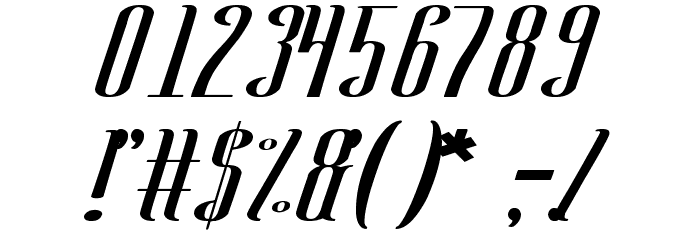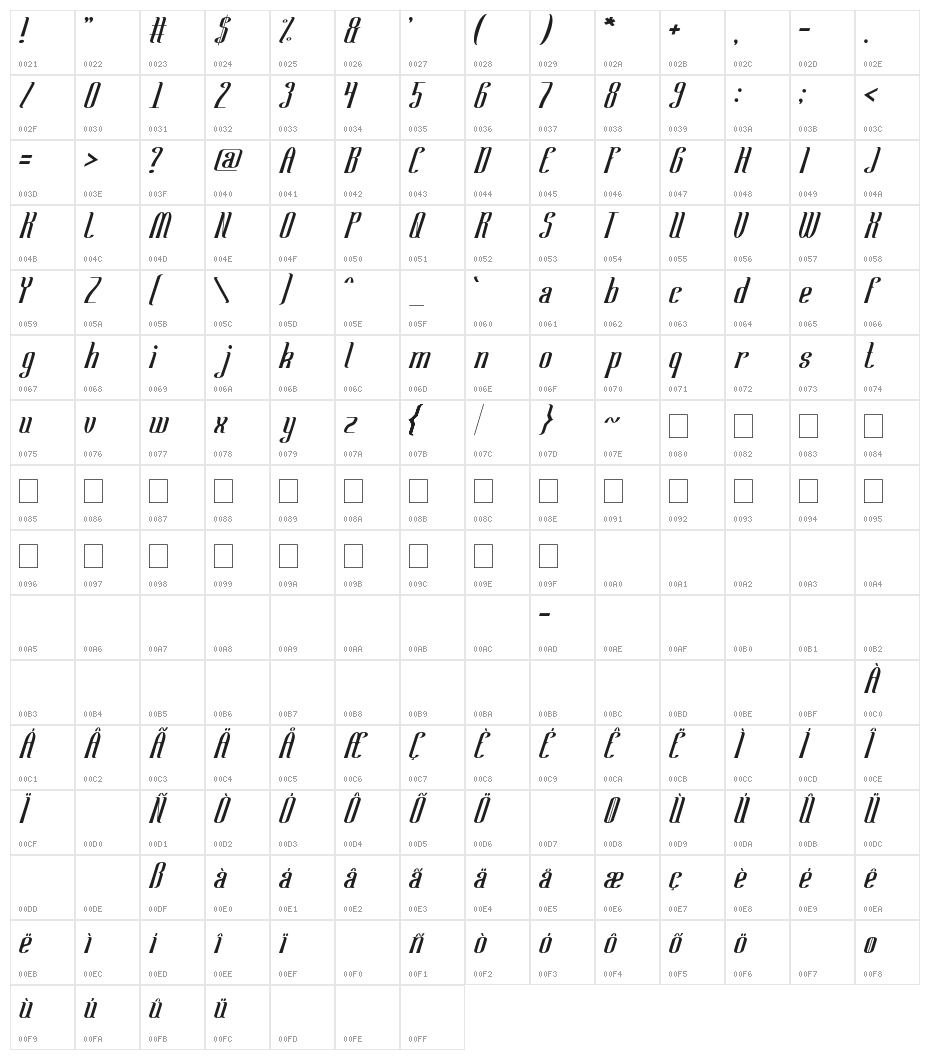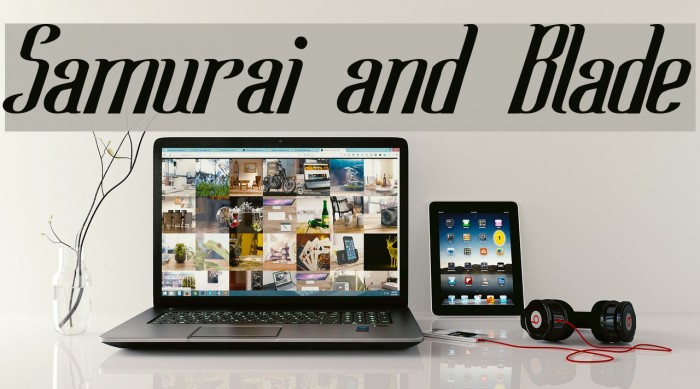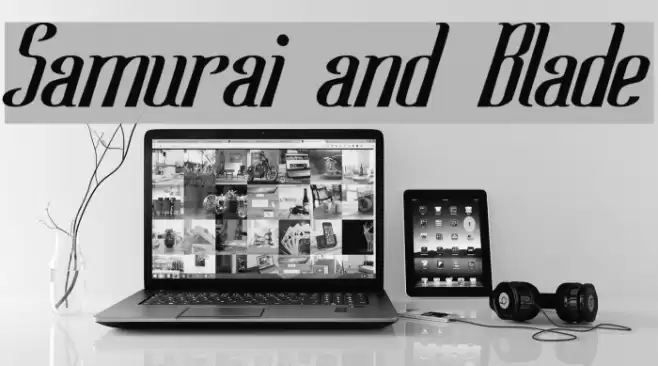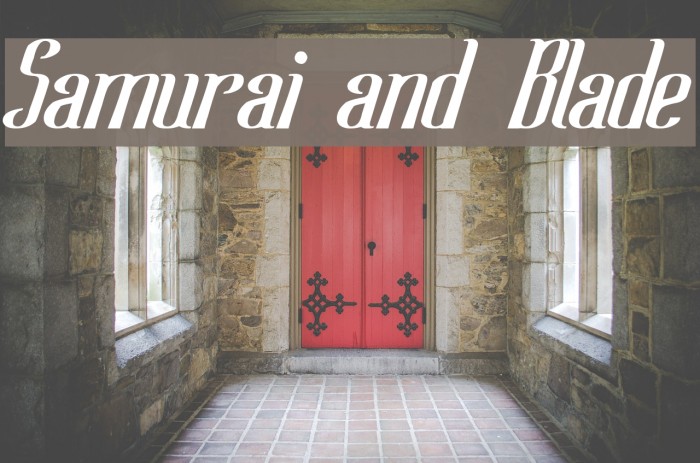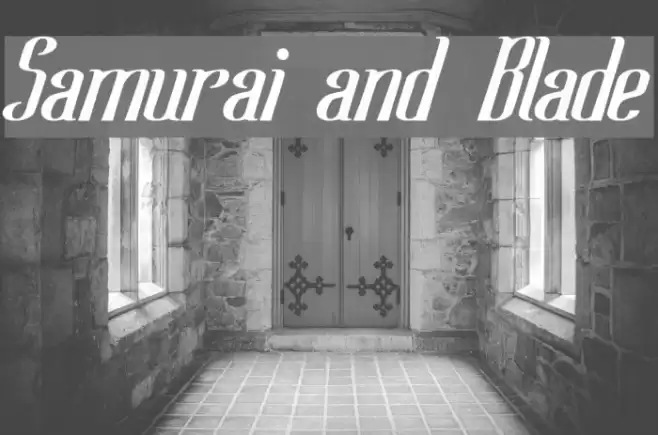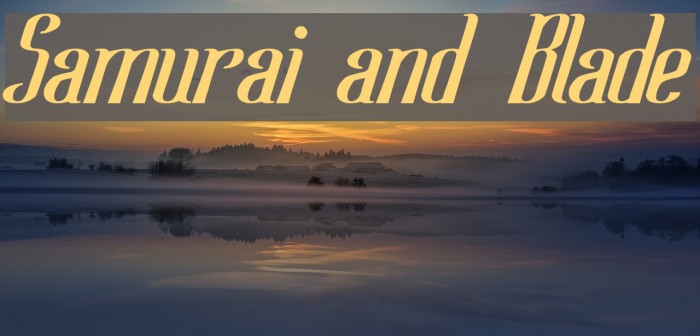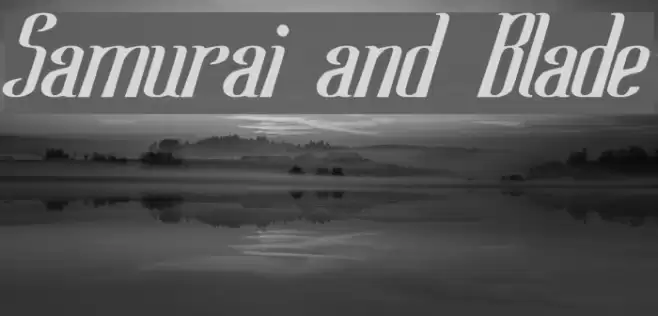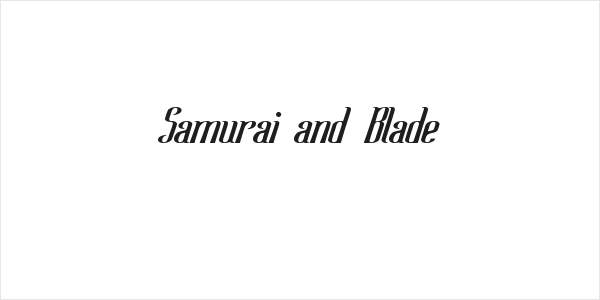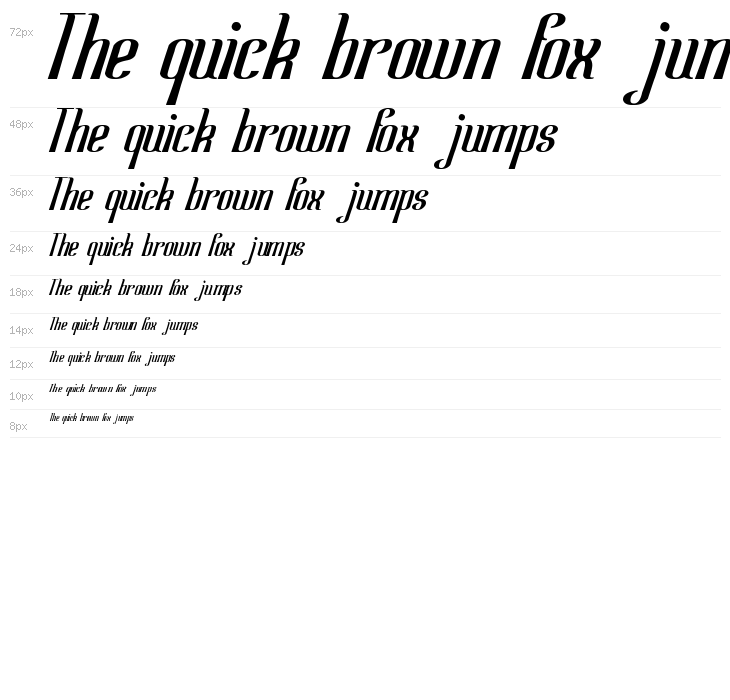
Samurai and Blade Font
Samurai and Blade Description
This font features a bold and dynamic style with sharp, angular lines that convey a sense of movement and energy. The characters are slightly condensed, giving a sleek and modern appearance. The uppercase letters are tall and commanding, while the lowercase letters maintain a consistent flow with a slight slant, adding to the overall dynamic feel. The numerals are distinct and align well with the overall design, ensuring readability. Special characters are crafted with the same attention to detail, maintaining the font's cohesive look. This font's unique style makes it suitable for projects that require a bold and impactful visual statement.
| Proposed Projects | Ideal for branding, posters, headlines, and any design needing a strong visual impact. |